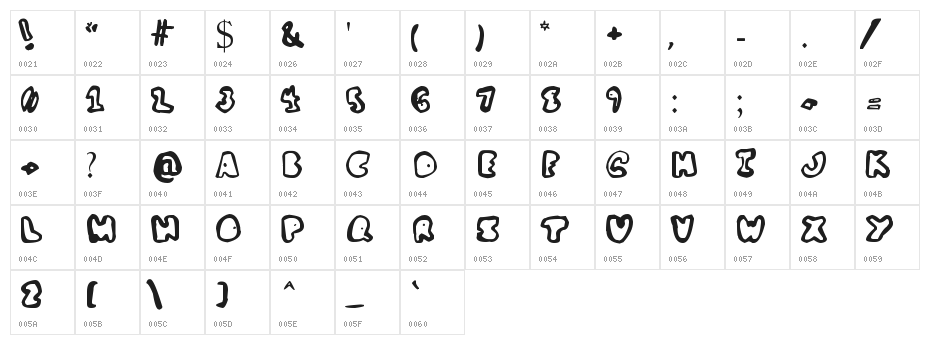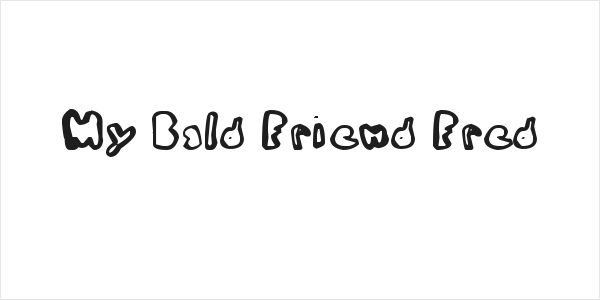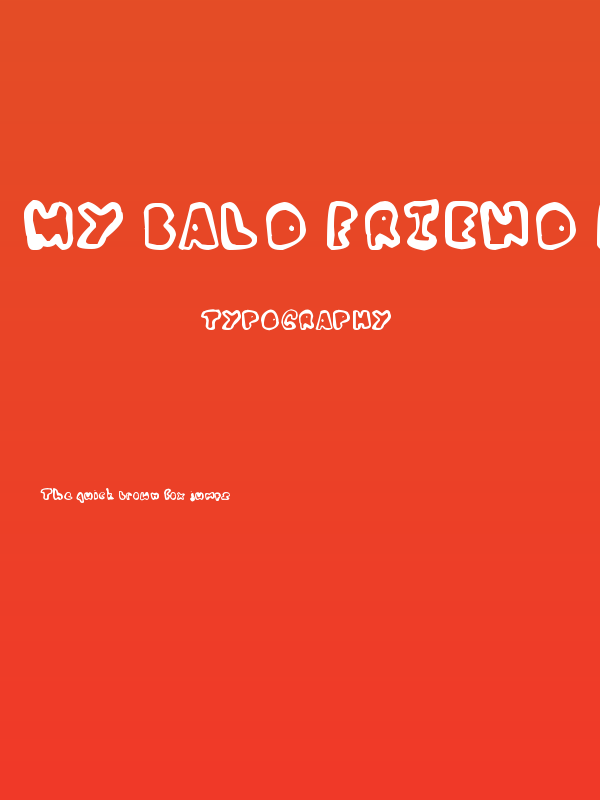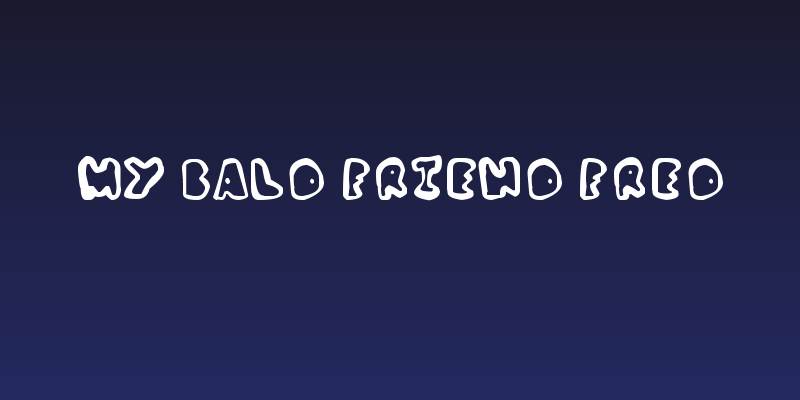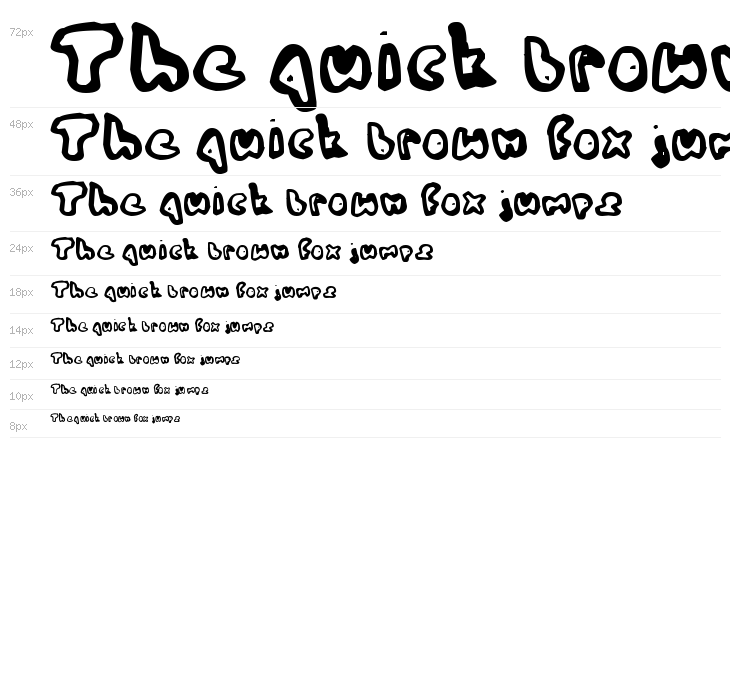
My Bald Friend Fred Font
My Bald Friend Fred Description
This playful and bold font features a hand-drawn, cartoonish style with thick, irregular strokes that give it a lively and energetic appearance. The characters are outlined with a consistent thickness, creating a bubble-like effect that is both whimsical and eye-catching. The uppercase and lowercase letters maintain a consistent style, with rounded edges and a slightly uneven baseline that adds to the font's charm. The numbers and special characters follow the same playful design, making the font suitable for creative and informal projects.
| Overall Style | Playful, Cartoonish, Whimsical |
| Proposed Projects | Ideal for children's books, comic strips, playful branding, party invitations, and creative posters. |